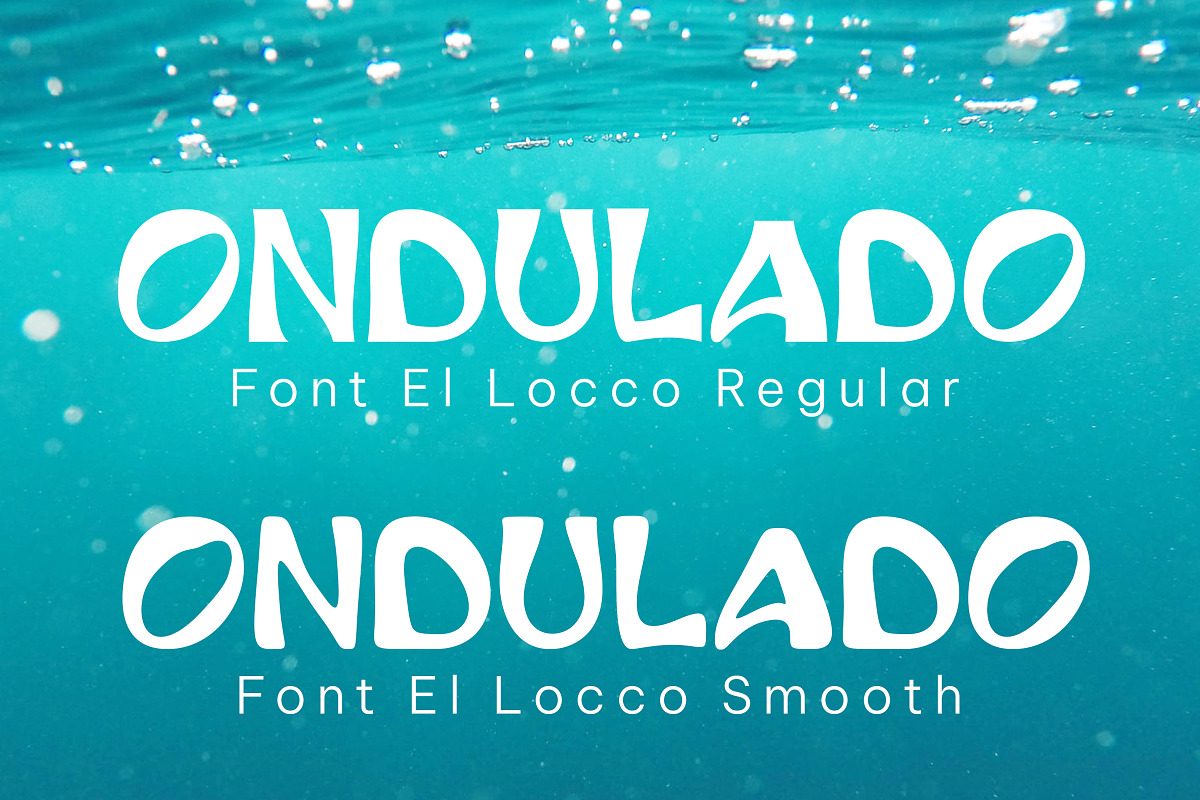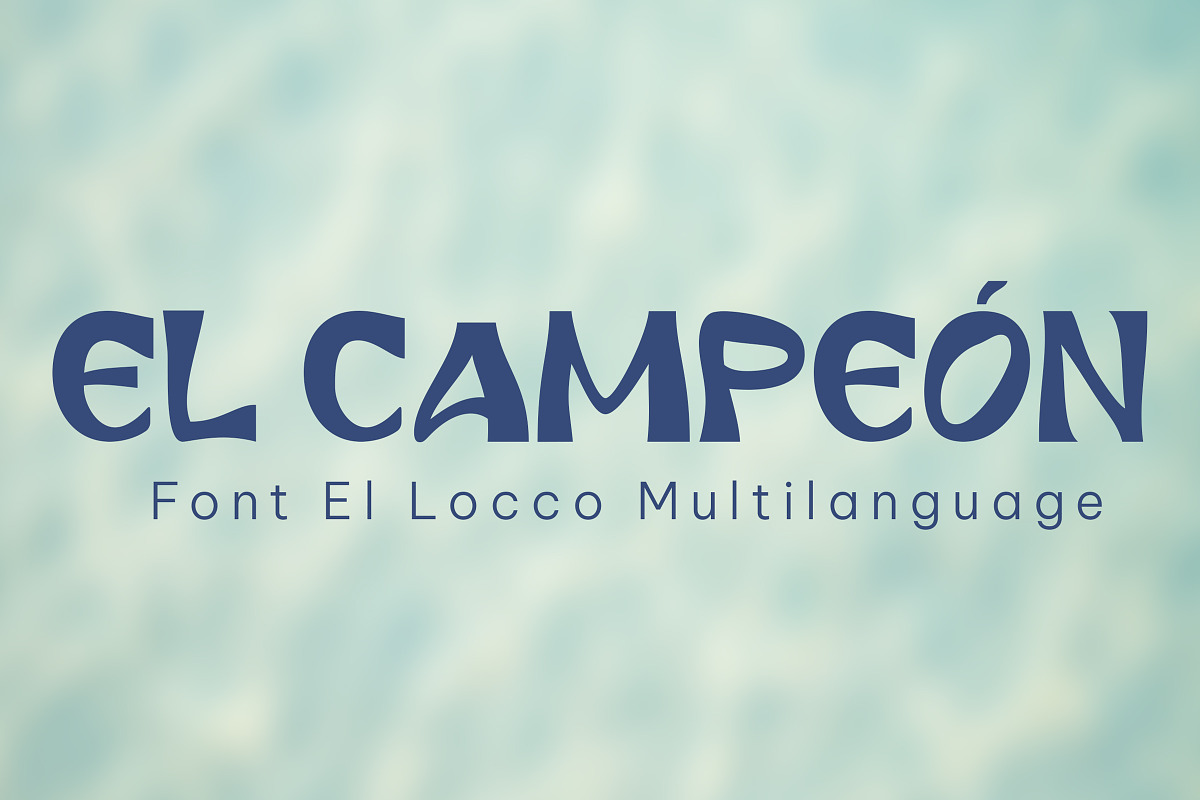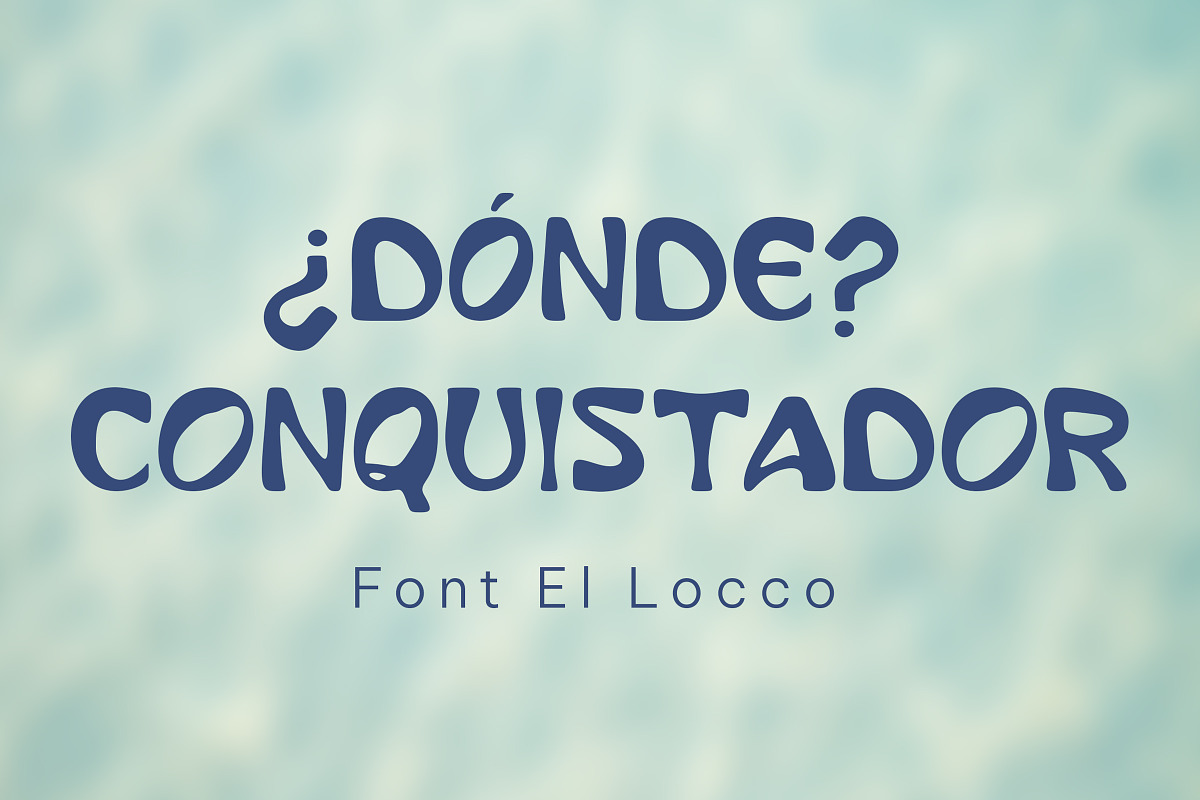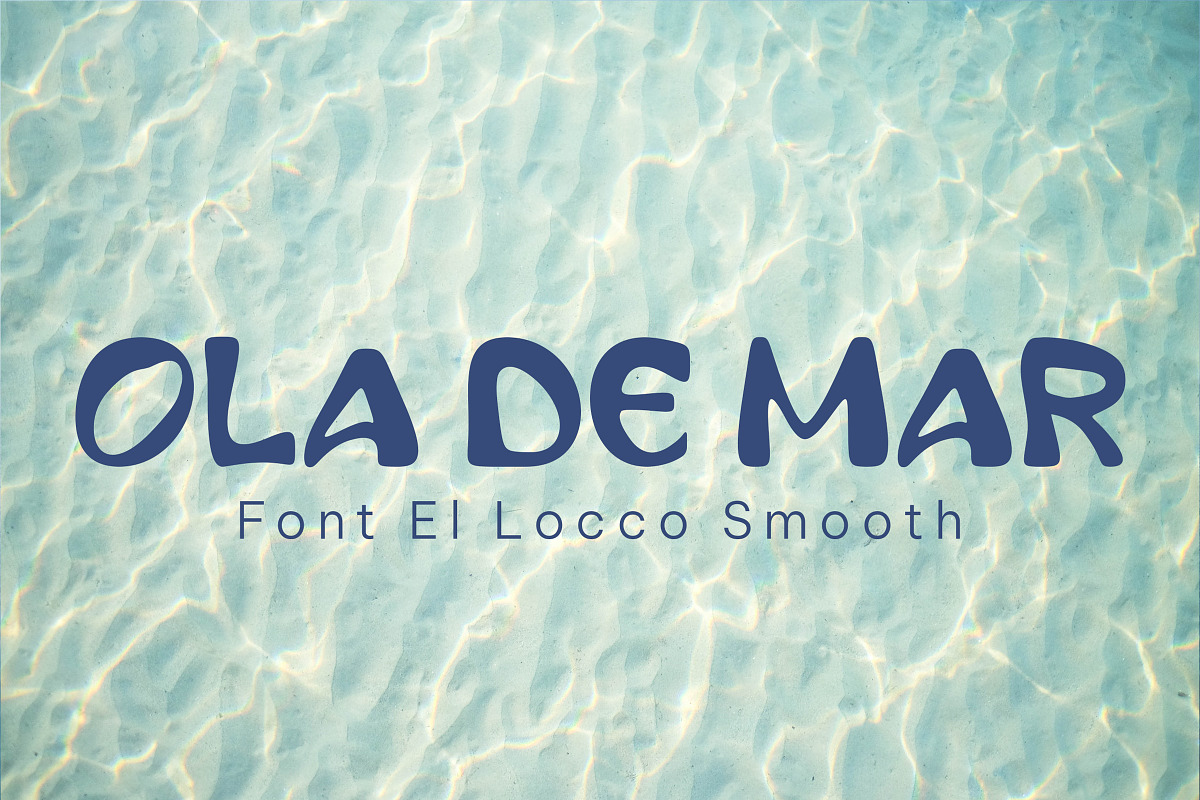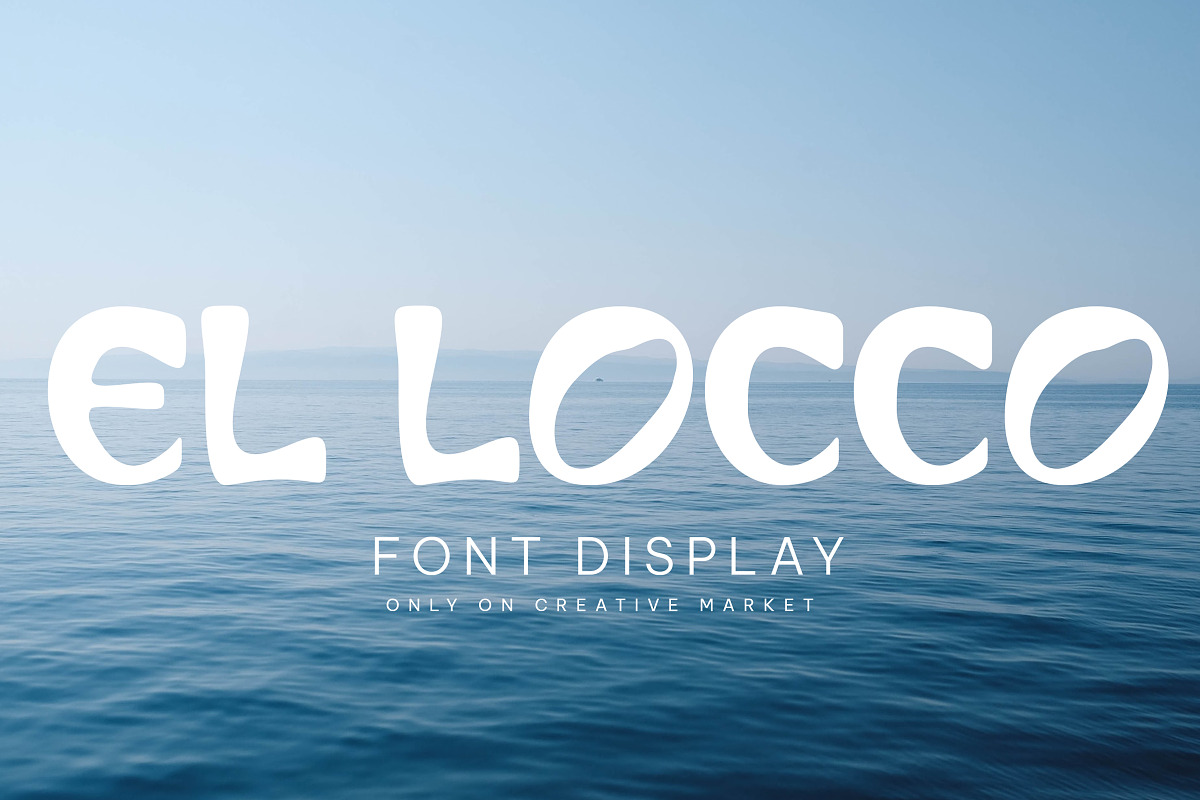
El Locco - Display Font
El Locco is an all-caps vintage display font with a bold style. This font is sweet, cute, and dynamic. This font is perfect for projects that require a touch of retro charm without overwhelming the design.